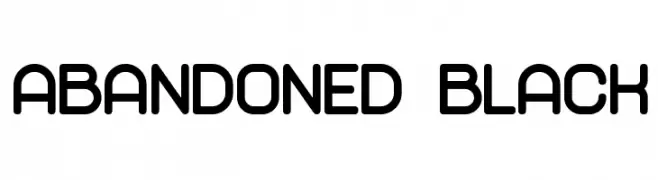
( Vladimir Nikolic - www.coroflot.com/vladimirnikolic )
A playful, bold font with rounded, glossy characters resembling gummy candies.
( Vladimir Nikolic - www.coroflot.com/vladimirnikolic )
Bold, decorative font with a playful, banner-like presentation.
( Vladimir Nikolic - www.coroflot.com/vladimirnikolic )
A bold, serif font with characters on banner-like backgrounds, perfect for festive occasions.
( Vladimir Nikolic - www.coroflot.com/vladimirnikolic )
A playful, cursive font with interconnected letters and a handwritten feel.
( Vladimir Nikolic - www.coroflot.com/vladimirnikolic )
Intricately detailed idol heads with elaborate headdresses in a decorative style.
( Vladimir Nikolic - www.coroflot.com/vladimirnikolic )
A decorative font with each character depicted as a stylized human face.
( Vladimir Nikolic - www.coroflot.com/vladimirnikolic )
A bold, serif font with strong, angular serifs and a modern yet classic style.
( Vladimir Nikolic - www.coroflot.com/vladimirnikolic )
A bold, italic font with a dynamic and modern style.
( Vladimir Nikolic - www.coroflot.com/vladimirnikolic )
Bold, uppercase serif letters in decorative square borders.
( Vladimir Nikolic - www.coroflot.com/vladimirnikolic )
A bold, rounded font with a playful and friendly appearance.
( Vladimir Nikolic - www.coroflot.com/vladimirnikolic )
A bold, rounded font with a playful shadow effect for a dynamic, three-dimensional look.
( Vladimir Nikolic - www.coroflot.com/vladimirnikolic )
A bold, rounded, and italicized font with a playful and dynamic style.
( Vladimir Nikolic - www.coroflot.com/vladimirnikolic )
A playful, bubble-like font with a shadow effect for a three-dimensional look.
( Vladimir Nikolic - www.coroflot.com/vladimirnikolic )
A bold, textured font with a honeycomb pattern, perfect for decorative projects.
( Vladimir Nikolic - www.coroflot.com/vladimirnikolic )
A decorative font inspired by astrological symbols with intricate lines and curves.
( Vladimir Nikolic - www.coroflot.com/vladimirnikolic )
A bold, futuristic font with a geometric and impactful style.
( Vladimir Nikolic - www.coroflot.com/vladimirnikolic )
A bold, geometric font with a futuristic and decorative style.
( Vladimir Nikolic - www.coroflot.com/vladimirnikolic )
A playful, bubble-like font with bold outlines and a whimsical style.
( Vladimir Nikolic - www.coroflot.com/vladimirnikolic )
A playful, bold font with rounded, bubble-like characters and a glossy 3D appearance.
( Vladimir Nikolic - www.coroflot.com/vladimirnikolic )
A bold, whimsical font with decorative swirls and dots, perfect for creative projects.
( Vladimir Nikolic - www.coroflot.com/vladimirnikolic )
A bold, playful font with decorative spiral patterns on each character.
( Vladimir Nikolic - www.coroflot.com/vladimirnikolic )
A playful, bold font with swirling patterns and dots, perfect for creative projects.
( Vladimir Nikolic - www.coroflot.com/vladimirnikolic )
A bold, textured font with a vintage, industrial style.
( Vladimir Nikolic - www.coroflot.com/vladimirnikolic )
A bold, italicized font with a distressed, vintage texture.
( Vladimir Nikolic - www.coroflot.com/vladimirnikolic )
A decorative font with bold characters enclosed in ornate circular frames.
( Vladimir Nikolic - www.coroflot.com/vladimirnikolic )
A bold, geometric font with thick strokes and minimal contrast.
( Vladimir Nikolic - www.coroflot.com/vladimirnikolic )
A bold, italic font with strong, angular lines and a dynamic slant.
( Vladimir Nikolic - www.coroflot.com/vladimirnikolic )
A playful 3D jigsaw puzzle piece font with bold outlines and shadowing.
( Vladimir Nikolic - www.coroflot.com/vladimirnikolic )
A 3D jigsaw puzzle piece font with a playful and engaging design.
( Vladimir Nikolic - www.coroflot.com/vladimirnikolic )
A bold, geometric font with a three-dimensional effect and strong visual impact.
( Vladimir Nikolic - www.coroflot.com/vladimirnikolic )
A bold, italicized font with a gradient effect and solid outlines.
( Vladimir Nikolic - www.coroflot.com/vladimirnikolic )
A bold, italicized font with a three-dimensional outlined style.
( Vladimir Nikolic - www.coroflot.com/vladimirnikolic )
A bold, gradient-effect font with a three-dimensional appearance.
( Vladimir Nikolic - www.coroflot.com/vladimirnikolic )
A bold, geometric font with a strong, industrial aesthetic.
( Vladimir Nikolic - www.coroflot.com/vladimirnikolic )